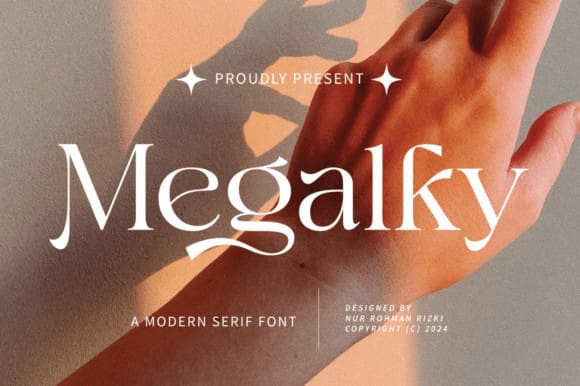
Megalky Font
Megalky Font is a font that is made with care and precision, making the font look very elegant and modern. The curves in these letters add elegance to every word, making it the right choice for designers.
Megalky is perfect for branding, logotypes, wedding invitations, romantic quotes, labels, social media posts, advertising, product packaging, product designs, labels, photography, watermarks, invitations, stationery and any project looking for premium quality, luxury, and aesthetic feel.